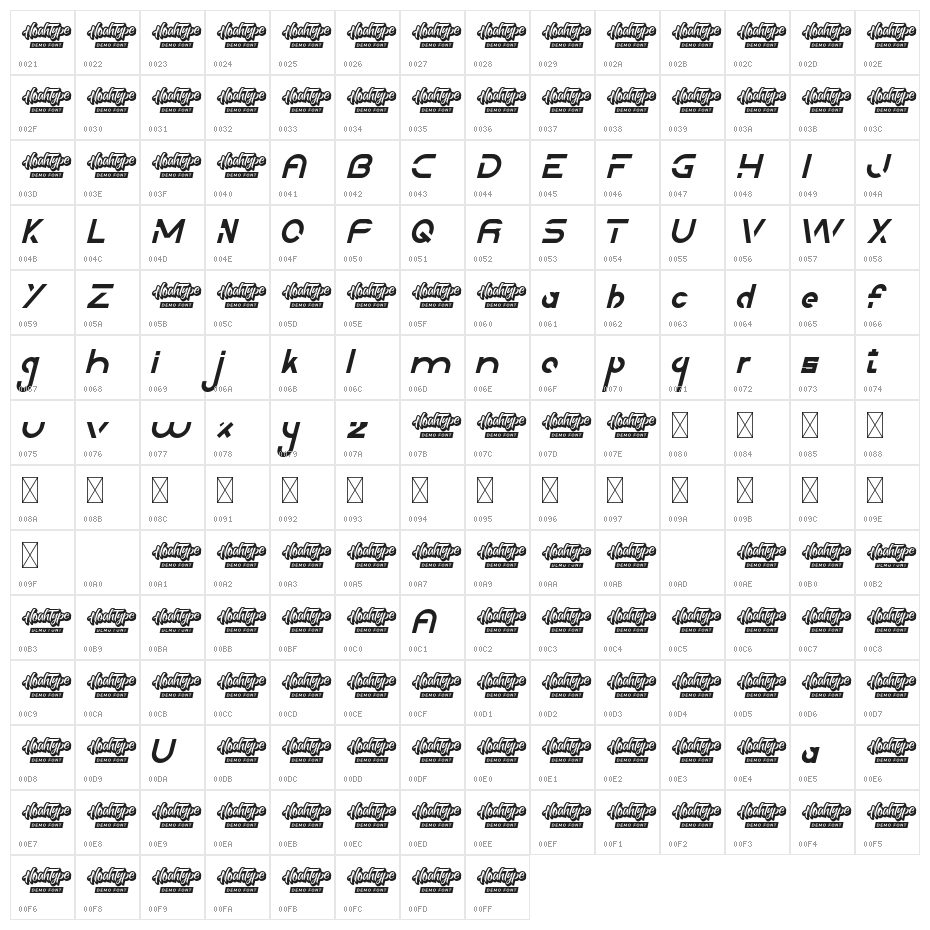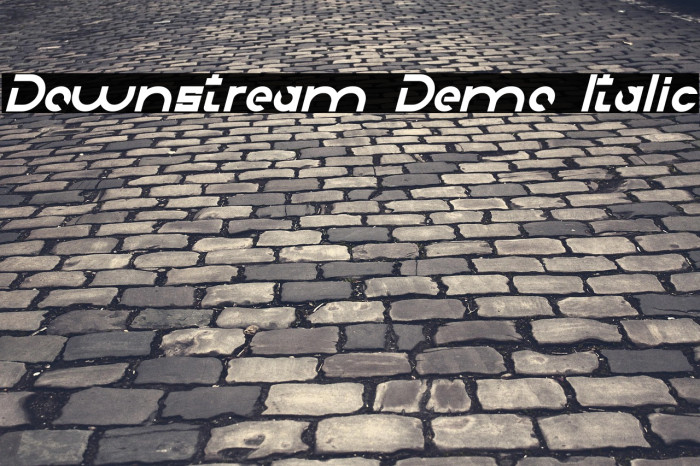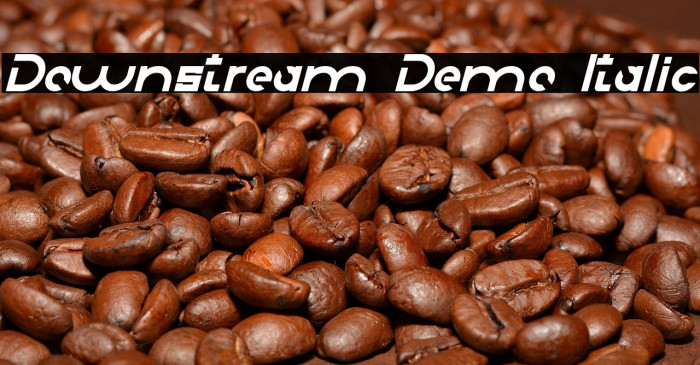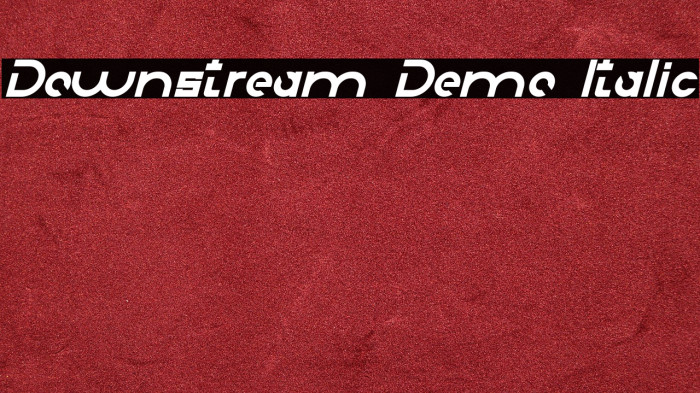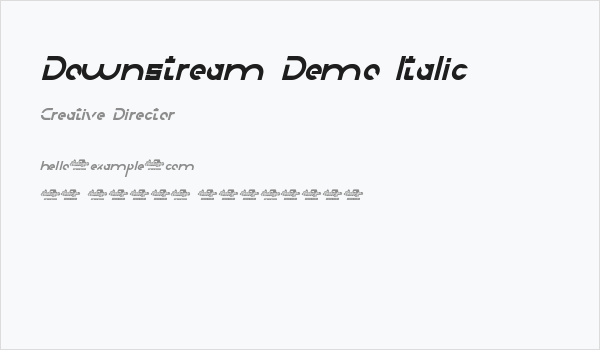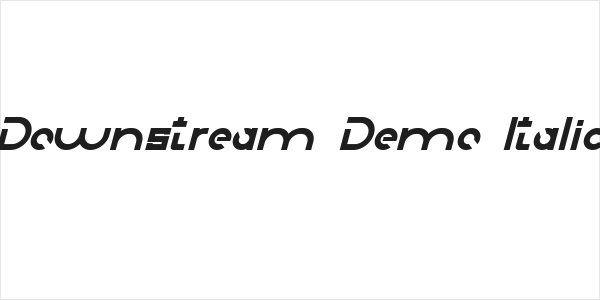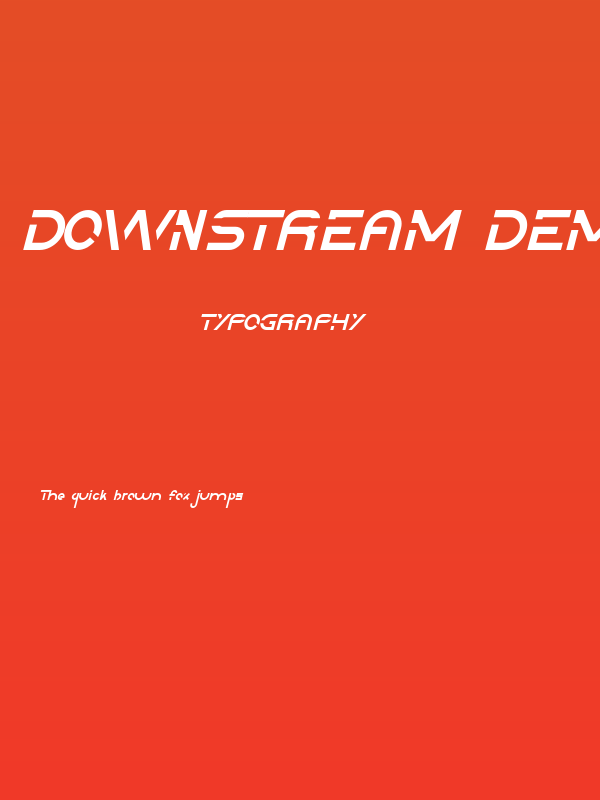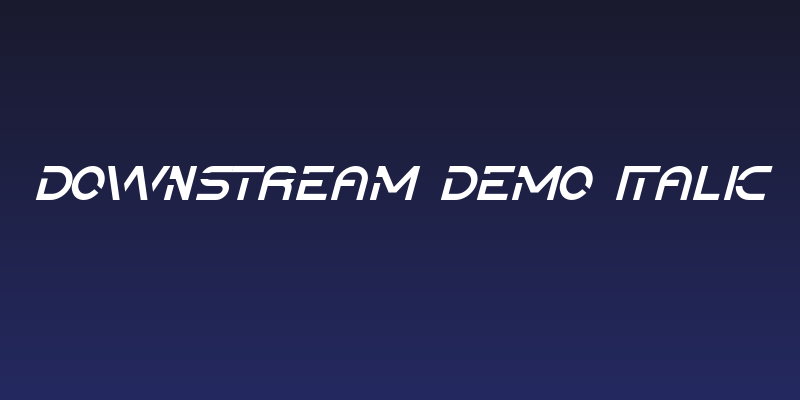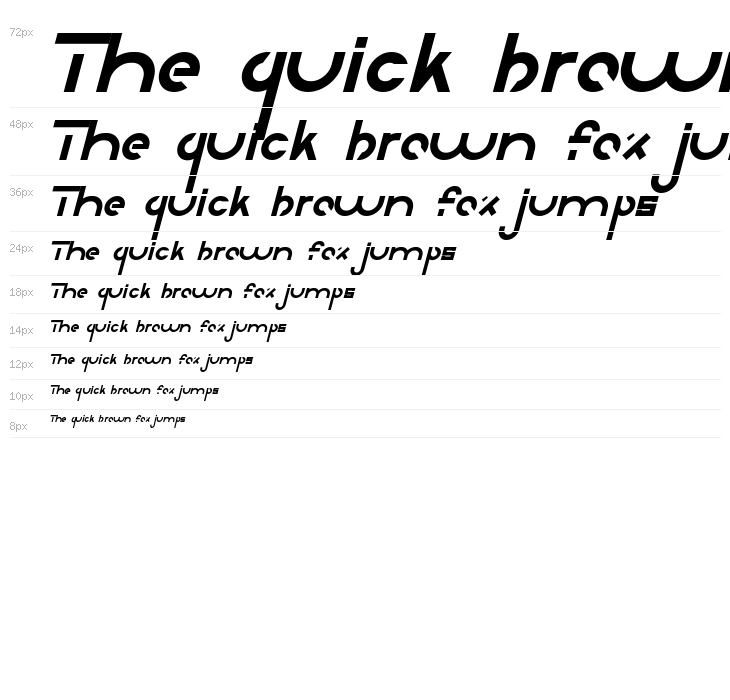
Downstream Demo Italic Font
Downstream Demo Italic Description
This font features a sleek, modern design with a strong italic slant, giving it a dynamic and forward-moving appearance. The characters are crafted with a futuristic aesthetic, incorporating sharp angles and clean lines that convey a sense of speed and innovation. The uppercase letters are bold and assertive, while the lowercase letters maintain a consistent style, ensuring readability and visual harmony. The numbers and special characters are designed to match the overall theme, making this font versatile for various applications. Its unique style is ideal for projects that require a contemporary and energetic look.
Use CaseLogos, Headlines, Branding
Proposed ProjectsIdeal for technology branding, sports team logos, automotive advertisements, and modern web design.